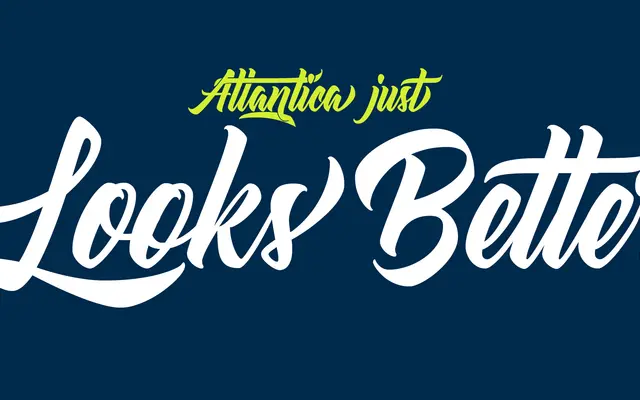
Atlantica
Zetafonts · Pellisco, Cosimo Lorenzo Pancini · 2017
A cursive brushscript in three variants, drawn by lettering artist Pellisco with Cosimo Lorenzo Pancini, tuned for everything from flowing signatures to logotype work.
Originating from hand lettering by Pellisco, the family splits into three purpose-built cuts: Signature preserves the raw original letterforms with alternates for display use, Text reins in the lowercase t and makes small legibility adjustments for running copy, and Display goes furthest with automatic OpenType ligatures that knit words into connected lettering compositions. The three styles share 720 glyphs and cover 188 languages across Latin script. Part of Zetafonts' Signature series, which commissions typefaces directly from practising lettering artists.
A cursive brushscript drawn from hand lettering, with three optical variants tuned for display, text and signature use. The fluid, connected letterforms and brush-derived strokes place it firmly in the script category.